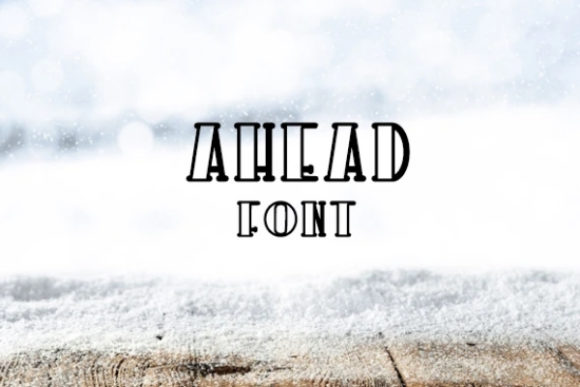
Ahead Font: A Distinct and Elegant Display Font
Ahead Font is a stunning display font that seamlessly blends traditional influences with a contemporary aesthetic. Its well-balanced Latin details boast distinctive contrasts, making it perfect for designers, crafters, and creative hobbyists looking to add a touch of sophistication to their work.
- ✨ Elegant and refined design
- ✅ Well-balanced Latin details with distinctive contrasts
- 💡 Maximum versatility for various design projects
- 🎨 Perfect for creating exquisite, yet subtle designs
While Ahead Font is an exceptional font, there are a few minor quirks to be aware of:
- 🤔 Limited use for body text due to its display font nature
- ⚠️ May require adjustments for certain design applications
A Practical Guide to Using Ahead Font
- Experiment with OpenType features, such as stylistic alternates, to add visual interest to your design.
- Explore the font’s glyphs and OpenType features, such as ligatures and swashes, to enhance your design.
- Use the font’s stylistic alternates and glyphs to add visual interest to your document.
The Designer Behind Ahead Font
Ahead Font was designed with a passion for typography and a keen eye for detail. The designer’s inspiration came from a desire to create a font that blended traditional influences with a contemporary aesthetic, resulting in a unique and elegant display font.
Q: What type of designs is Ahead Font best suited for?
A: Ahead Font is perfect for designs that require an elegant and refined touch, such as logos, branding, and display text.
Q: Can I use Ahead Font for body text?
A: While Ahead Font is a beautiful font, it’s primarily designed for display text and may not be the best choice for body text due to its elegant and refined nature.